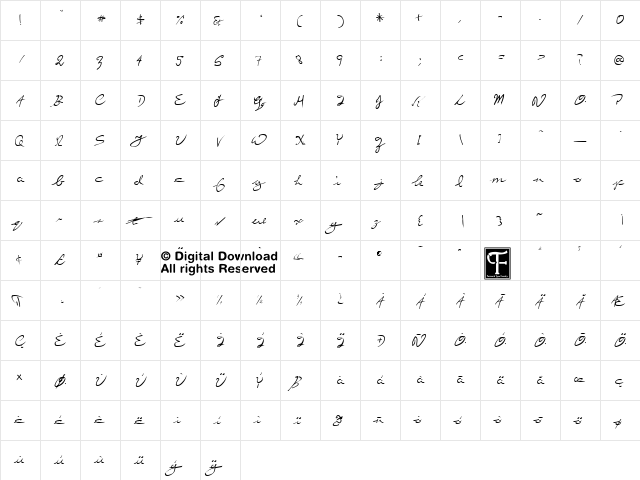
Ripper Script
| Style | Script |
Design Context for Ripper Typeface
Ripper flows with the natural rhythm of handwritten lettering, making it ideal for designs that call for warmth and personal expression.
Font Pairing: Combine Ripper with a simple geometric sans for maximum contrast — the tension between flowing curves and clean structure is a classic typographic pairing.
Pro Tip: Use Ripper for short runs of text — names, titles, or taglines. Extended body copy in script faces tires the eye quickly.